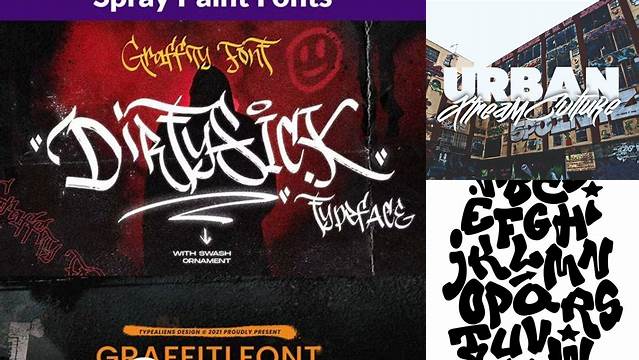
Graffiti Tag Fonts: Unleash Your Inner Artist
Hey guys! Ever been captivated by the raw energy and rebellious spirit of graffiti? One of the coolest aspects of graffiti art is the lettering, those tag fonts that scream personality and style. So, let’s dive deep into the world of graffiti tag fonts, exploring everything from their history to how you can create your own. Get ready to unleash your inner artist!
History and Evolution of Graffiti Tag Fonts
The Origins of Graffiti Lettering
To truly appreciate graffiti tag fonts, we need to rewind the clock and understand their roots. Graffiti, in its essence, is an ancient art form. Think cave paintings, Roman inscriptions, and even medieval markings – humans have always had the urge to leave their mark. But the modern graffiti scene, the one we associate with vibrant lettering and bold tags, really took off in the late 1960s and early 1970s in Philadelphia and New York City. Early taggers used simple, legible lettering to get their names out there, marking their territory and building their reputations. These foundational styles laid the groundwork for the explosion of creativity that was to come.
Imagine the streets of New York in the 70s, a canvas of urban grit and raw energy. Young artists, fueled by a desire for recognition and self-expression, began using the city as their gallery. They developed unique handstyles, experimenting with letterforms, adding flourishes, and playing with the negative space around the letters. This was more than just writing a name; it was about crafting a visual identity, a signature that screamed, “I was here!” The competition was fierce, and the taggers pushed each other to innovate, resulting in a rapid evolution of styles and techniques. This era was crucial in shaping the graffiti tag fonts we know and love today. It was a period of experimentation, innovation, and a whole lot of attitude.
The Transition to Modern Styles
As graffiti evolved, so did the graffiti tag fonts. What started as simple lettering morphed into intricate, stylized designs. Artists began incorporating elements like arrows, stars, and other embellishments to make their tags stand out. The use of bubble letters, wildstyle, and other complex forms became increasingly popular. This transition marked a shift from mere identification to artistic expression. Graffiti was no longer just about getting your name seen; it was about creating a visually stunning piece of art in its own right. Think about the layers of meaning embedded in these fonts – they’re not just letters; they’re symbols of identity, rebellion, and artistic innovation.
This evolution wasn't just about aesthetics; it was also about pushing boundaries. Artists constantly sought new ways to challenge conventions and create something unique. They drew inspiration from a variety of sources, from comic books and graphic design to calligraphy and typography. This fusion of influences led to the creation of diverse and dynamic graffiti tag fonts that reflected the ever-changing urban landscape. The modern styles are a testament to the ingenuity and creativity of graffiti artists, who continue to push the limits of what’s possible with letterforms.
Types of Graffiti Tag Fonts
Bubble Letters
Ah, bubble letters! These round, plump, and often overlapping forms are a classic in the world of graffiti tag fonts. They’re characterized by their soft edges and inflated appearance, giving them a playful yet bold look. Think of them as the friendly giants of graffiti lettering. Bubble letters are a great starting point for aspiring graffiti artists because they’re relatively simple to execute, but they also offer plenty of room for customization. You can play with the thickness of the lines, the amount of overlap, and the overall shape of the letters to create your own unique style.
The appeal of bubble letters lies in their accessibility and versatility. They’re instantly recognizable, making them an effective way to get your tag noticed. But don’t let their simplicity fool you; mastering bubble letters requires practice and attention to detail. The key is to maintain consistent spacing and proportions between the letters, ensuring that the tag remains legible and visually appealing. Experiment with different variations, such as adding drips, highlights, or shadows, to give your bubble letters an extra dimension. Remember, the best graffiti tag fonts are those that reflect your personal style and creativity.
Wildstyle
Now, let’s talk about wildstyle – the undisputed king of complex graffiti tag fonts. Wildstyle is characterized by its intricate, interlocking letterforms, often with arrows, connections, and abstract shapes thrown into the mix. It’s like a visual puzzle, challenging the viewer to decipher the tag while simultaneously admiring the artistry. Wildstyle is not for the faint of heart; it requires a high level of skill and spatial awareness to execute effectively. But the payoff is huge: a well-executed wildstyle tag is a true masterpiece, a testament to the artist's creativity and technical prowess.
The beauty of wildstyle lies in its ambiguity and its ability to transform letters into abstract art. The interlocking forms create a sense of movement and energy, drawing the viewer's eye across the tag. While the legibility of wildstyle can sometimes be a challenge, that’s part of its charm. It’s a style that demands attention and rewards close inspection. If you’re looking to create a tag that’s truly unique and visually stunning, wildstyle is the way to go. Just be prepared to put in the time and effort to master this complex and rewarding style of graffiti tag fonts.
Block Letters
Block letters are the solid, sturdy foundation of graffiti tag fonts. They’re characterized by their clean lines, sharp angles, and bold presence. Think of them as the architectural backbone of graffiti lettering, providing a strong and legible base for more elaborate styles. Block letters are often used for outlines and fills, providing a contrast to the more intricate details of a tag. They’re also a great choice for beginners because they’re relatively easy to learn and execute. But don’t underestimate the power of a well-crafted block letter tag; when done right, they can be incredibly impactful.
The simplicity of block letters is their strength. They’re instantly recognizable and highly legible, making them an effective way to get your message across. But that doesn’t mean they’re boring. You can add your own personal touch by varying the thickness of the lines, playing with the negative space, and incorporating subtle details. Block letters are also a great canvas for experimentation. Try adding drips, highlights, or shadows to give them more dimension. Or use them as a base for more complex styles, such as wildstyle or 3D lettering. The possibilities are endless when you’re working with graffiti tag fonts.
Throw-Ups
Throw-ups are the quick and dirty cousins of graffiti tag fonts. They’re typically two-color tags, often done with bubble letters or simplified block letters, designed to be executed quickly and efficiently. Think of them as the urban equivalent of a signature – a fast and impactful way to get your name seen. Throw-ups are all about speed and visibility, often done in high-traffic areas or on difficult-to-reach surfaces. They’re a staple of the graffiti scene, a testament to the artist's dedication and persistence.
The key to a good throw-up is simplicity and legibility. You want to create a tag that’s easy to read and recognizable, even at a distance. That’s why bubble letters are a popular choice for throw-ups; their rounded forms are quick to execute and highly visible. But don’t let the simplicity fool you; mastering the throw-up takes practice and skill. You need to be able to execute the tag quickly and cleanly, without sacrificing the overall aesthetic. Experiment with different colors, letterforms, and techniques to develop your own unique throw-up style. Remember, the best graffiti tag fonts are those that are both visually appealing and effective in getting your message across.
Stencil Fonts
Stencil fonts bring a unique flavor to the world of graffiti tag fonts. They're characterized by their clean, crisp lines and consistent shapes, often created using physical stencils. Think of them as the precision tools of the graffiti artist, allowing for intricate designs and repeatable patterns. Stencil fonts are a great way to create visually striking tags that stand out from the crowd. They’re also a popular choice for political and social messaging, allowing for the quick and efficient dissemination of information.
The appeal of stencil fonts lies in their versatility and precision. You can create stencils using a variety of materials, from cardboard and plastic to metal and even wood. This allows for a wide range of textures and effects, from smooth and polished to rough and textured. Stencil fonts are also a great way to experiment with negative space. By cutting out shapes and letters from the stencil, you can create tags that are both visually striking and conceptually interesting. Whether you’re looking to create intricate designs or bold, impactful messages, stencil fonts offer a unique and powerful tool for expression within the realm of graffiti tag fonts.
Creating Your Own Graffiti Tag Fonts
Understanding the Basics of Lettering
Before you dive headfirst into creating your own graffiti tag fonts, it’s crucial to understand the fundamentals of lettering. Think of it as learning the alphabet before writing a novel. Understanding basic letterforms, spacing, and proportions will provide a solid foundation for your graffiti journey. Start by studying different typefaces and handstyles. Pay attention to the way letters are constructed, the curves and angles, and the overall balance and harmony. This knowledge will help you develop your own unique style and create tags that are both legible and visually appealing.
The basics of lettering aren’t just about aesthetics; they’re also about functionality. A well-designed tag is one that’s easy to read and recognizable, even at a distance. That’s why understanding letter spacing and proportions is so important. You need to ensure that the letters are evenly spaced and that they maintain a consistent size and shape. This will help your tag stand out and communicate your message effectively. So, take the time to learn the basics of lettering before you start experimenting with more complex styles. It’s an investment that will pay off in the long run when you're crafting those killer graffiti tag fonts.
Experimenting with Different Styles
Once you’ve got a grasp of the basics, it’s time to let your creativity flow! Experimentation is key to developing your own unique style of graffiti tag fonts. Try your hand at different lettering styles, from bubble letters and block letters to wildstyle and stencil fonts. Don’t be afraid to mix and match elements from different styles to create something entirely new. The goal is to find a style that resonates with you and that allows you to express your personality and artistic vision.
Experimentation isn’t just about trying different styles; it’s also about pushing boundaries and challenging conventions. Try distorting letters, adding flourishes, and playing with negative space. Don’t be afraid to make mistakes; they’re often the best way to learn and discover new techniques. Keep a sketchbook handy and fill it with ideas, sketches, and experiments. The more you practice and experiment, the more confident and skilled you’ll become in crafting your own graffiti tag fonts. Remember, the best graffiti artists are those who are constantly learning and evolving.
Using Digital Tools
In today’s digital age, there’s a wealth of tools available to help you create graffiti tag fonts. From graphic design software like Adobe Photoshop and Illustrator to specialized graffiti apps, the possibilities are endless. Digital tools offer a range of benefits, including the ability to experiment with different colors, textures, and effects without the mess and expense of traditional materials. They also make it easy to share your work online and collaborate with other artists.
But don’t think that digital tools are a replacement for traditional techniques. They’re simply another tool in your arsenal. It’s important to develop your skills with traditional methods, such as sketching and hand lettering, before you start relying on digital tools. This will give you a better understanding of the fundamentals of lettering and design. Use digital tools to enhance your work, not to replace it. Experiment with different software and apps to find the ones that best suit your style and workflow. And remember, the most important tool is your imagination when creating those awesome graffiti tag fonts.
Practicing Regularly
Like any art form, mastering graffiti tag fonts requires consistent practice. Think of it as training a muscle; the more you use it, the stronger it gets. Set aside time each day or week to practice your lettering skills. Start with the basics, such as drawing letterforms and practicing spacing. Then, gradually move on to more complex styles and techniques. The key is to be patient and persistent. Don’t get discouraged if your tags don’t look perfect at first. The more you practice, the better you’ll become.
Practice isn’t just about repetition; it’s also about experimentation and refinement. Try different techniques, styles, and materials. Analyze your work and identify areas for improvement. Seek feedback from other artists and be open to constructive criticism. The best way to improve your skills is to learn from your mistakes and to continually challenge yourself. So, grab your sketchbook, pens, and markers, and get to work. The more you practice, the closer you’ll get to creating those signature graffiti tag fonts that scream your name.
Seeking Inspiration
Inspiration is the fuel that drives creativity. When it comes to graffiti tag fonts, there’s inspiration all around you. From the lettering on vintage signs to the handstyles of legendary graffiti artists, there’s a wealth of visual material to draw from. Immerse yourself in the world of graffiti and street art. Visit galleries, browse online forums, and explore urban environments. Pay attention to the details, the shapes, the colors, and the textures. And don’t limit yourself to graffiti; draw inspiration from other art forms, such as graphic design, calligraphy, and typography.
But inspiration isn’t just about visual input; it’s also about personal experiences and emotions. Your life experiences, your passions, and your perspectives can all inform your art. Use your graffiti tag fonts as a way to express yourself and your unique point of view. Don’t be afraid to be authentic and original. The best graffiti artists are those who bring something new to the table, who challenge conventions and push boundaries. So, open your eyes, open your mind, and let the inspiration flow as you develop your own style of graffiti tag fonts.
Where to Use Your Graffiti Tag Fonts
Sketchbooks and Paper
Sketchbooks and paper are the perfect starting point for any aspiring graffiti artist. They provide a safe and low-pressure environment to experiment with graffiti tag fonts and develop your skills. Think of your sketchbook as your personal laboratory, a place where you can freely explore ideas, make mistakes, and learn from them. Fill it with sketches, drawings, and lettering experiments. Try different styles, colors, and techniques. Don’t be afraid to be messy and imperfect; the goal is to learn and grow.
Sketchbooks are also a great way to document your progress and track your evolution as an artist. Date your entries and make notes about your process and your inspirations. This will help you see how far you’ve come and identify areas where you can continue to improve. When you're working on graffiti tag fonts, don't underestimate the power of a good sketchbook. It’s an essential tool for any artist looking to hone their craft and develop their unique style. It’s where the magic starts, the first step in bringing your vision to life.
Digital Art
As we’ve discussed, digital art tools offer a fantastic way to create and experiment with graffiti tag fonts. Whether you’re using graphic design software like Adobe Photoshop and Illustrator or specialized graffiti apps, the digital realm opens up a world of possibilities. You can easily experiment with different colors, textures, and effects, without the mess and expense of traditional materials. Digital art also makes it easy to share your work online and collaborate with other artists.
But the beauty of digital art isn’t just about convenience; it’s also about creative potential. You can create intricate designs and complex compositions that would be difficult or impossible to achieve with traditional methods. Digital tools also allow you to easily undo mistakes and make revisions, making them a great choice for beginners. So, whether you’re a seasoned pro or just starting out, consider incorporating digital art into your graffiti tag fonts workflow. It’s a powerful tool for expression and a great way to push the boundaries of your creativity.
Murals (Legal Walls)
Murals are the ultimate canvas for graffiti tag fonts. They offer a large, public space to showcase your skills and share your art with the world. But it’s crucial to remember that creating murals on public or private property without permission is illegal and can have serious consequences. That’s why it’s important to seek out legal walls and sanctioned spaces where you can create your art without fear of legal repercussions.
Legal walls are designated areas where graffiti artists are allowed to paint murals. These spaces provide a safe and supportive environment for artists to express themselves and develop their skills. They’re also a great way to connect with other artists and build community. Before you start painting a mural, it’s important to research local regulations and obtain any necessary permits or permissions. Respect the space, respect the community, and respect the art form. When you’re working with graffiti tag fonts on a mural, you’re not just creating a piece of art; you’re contributing to a vibrant and dynamic urban landscape.
Clothing and Merchandise
Imagine rocking your own custom graffiti tag fonts on a t-shirt, hoodie, or even a hat! Applying your designs to clothing and merchandise is a fantastic way to showcase your artistic style and even turn your passion into a side hustle. With the rise of print-on-demand services, it's easier than ever to create and sell your own custom apparel. You can use digital tools to create your designs and then upload them to a print-on-demand platform, which will handle the printing and shipping for you.
But applying graffiti tag fonts to clothing isn’t just about making cool merch; it’s also about self-expression. It’s about wearing your art on your sleeve (literally!) and sharing your unique style with the world. Think about how you can incorporate your signature tag, your favorite lettering styles, and your personal artistic flair into your clothing designs. Whether you're creating a bold statement piece or a subtle nod to your graffiti roots, clothing and merchandise offer a unique canvas for showcasing your graffiti tag fonts.
Digital Platforms (Social Media, Websites)
In the digital age, your online presence is just as important as your physical presence. Social media platforms like Instagram, TikTok, and Behance are powerful tools for showcasing your graffiti tag fonts and connecting with a global audience. These platforms provide a virtual gallery where you can share your work, get feedback, and build a following. A well-curated online portfolio can open doors to collaborations, commissions, and even career opportunities.
But building a successful online presence is about more than just posting your work; it’s about engaging with your audience and building a community. Respond to comments, participate in discussions, and collaborate with other artists. Use hashtags strategically to reach a wider audience. And don’t be afraid to experiment with different content formats, such as videos, tutorials, and behind-the-scenes glimpses into your creative process. Digital platforms offer a fantastic way to showcase your graffiti tag fonts, connect with other artists, and share your passion with the world.
Legal and Ethical Considerations
Understanding Graffiti Laws
It’s crucial to understand the legal landscape surrounding graffiti before you start creating your graffiti tag fonts in public spaces. Graffiti laws vary from place to place, but in general, creating graffiti on public or private property without permission is considered vandalism and is a criminal offense. The penalties for graffiti vandalism can range from fines and community service to jail time, depending on the severity of the offense and local laws.
Ignorance of the law is never an excuse. It’s your responsibility to research local regulations and understand what’s legal and what’s not. Seek out legal walls and sanctioned spaces where you can create your art without fear of legal repercussions. Respect private property and always obtain permission before painting on any surface. Remember, being a responsible and ethical artist is just as important as being a creative one. When it comes to graffiti tag fonts, knowledge of the law can keep you on the right side of it.
Respecting Private Property
One of the most important ethical considerations in the world of graffiti is respecting private property. Creating graffiti on someone else’s property without their permission is not only illegal, but it’s also disrespectful and can cause significant damage. Always obtain permission from the property owner before painting on any surface. If you’re unable to obtain permission, seek out legal walls and sanctioned spaces where you can create your art without violating anyone’s rights.
Respecting private property isn’t just about following the law; it’s about being a responsible member of the community. Graffiti can be a powerful form of self-expression, but it shouldn’t come at the expense of someone else’s property rights. Be mindful of the impact your art has on others and strive to create art that enhances the urban landscape without causing harm or offense. When you’re working with graffiti tag fonts, respect for private property is paramount to maintaining the integrity of the art form and fostering positive relationships within the community.
Ethical Considerations in Graffiti Art
Beyond legal considerations, there are also ethical considerations that every graffiti artist should be mindful of. These considerations include respecting other artists, avoiding offensive or hateful content, and creating art that enhances the community rather than detracting from it. Graffiti is a form of public expression, and with that comes a responsibility to use your voice wisely and thoughtfully.
Respecting other artists means avoiding biting (copying) their styles and giving credit where credit is due. It also means being mindful of the placement of your work and avoiding painting over someone else’s art without their permission. Avoiding offensive or hateful content means using your art to promote positive messages and avoid perpetuating harmful stereotypes or biases. Creating art that enhances the community means striving to create pieces that are visually appealing, thought-provoking, and contribute to the overall vibrancy of the urban landscape. Ethical considerations are a crucial aspect of graffiti tag fonts and ensure the art form remains a positive force in the community.
Famous Graffiti Artists and Their Tag Fonts
Jean-Michel Basquiat
Jean-Michel Basquiat, a name synonymous with the explosion of street art into the mainstream art world, was a true visionary. His signature graffiti tag fonts, often scrawled and layered with cryptic symbols and social commentary, were a key element of his unique artistic style. Basquiat's work challenged conventions and blurred the lines between street art and fine art, paving the way for future generations of graffiti artists. His raw, emotive style and his use of language as a visual medium made him a truly influential figure in the art world.
Basquiat's graffiti tag fonts weren't just about writing words; they were about creating a visual language that conveyed complex ideas and emotions. His tags were often filled with references to history, literature, and popular culture, inviting viewers to decode his messages and engage with his art on a deeper level. Basquiat's legacy extends far beyond the world of graffiti; he remains an inspiration to artists of all disciplines who seek to use their art as a vehicle for social commentary and personal expression.
Banksy
Banksy, the anonymous street art superstar, is known for his satirical and thought-provoking stencils, but his graffiti tag fonts also play a crucial role in his work. Often used to add context and commentary to his visual imagery, Banksy's lettering is simple yet effective, conveying his messages with clarity and wit. His anonymity adds an element of intrigue to his work, making him one of the most enigmatic and influential artists of our time.
Banksy's graffiti tag fonts are often characterized by their directness and their ability to pack a punch with just a few words. His messages are often politically charged, challenging the status quo and prompting viewers to question their assumptions. Banksy's work is a testament to the power of graffiti as a form of social commentary and a reminder that art can be a powerful tool for change. His unique blend of imagery and text has made him a global phenomenon, inspiring countless artists and activists around the world.
Futura 2000
Futura 2000, a true pioneer of abstract graffiti, revolutionized the world of graffiti tag fonts with his unique blend of lettering and abstract imagery. His work is characterized by its dynamic lines, vibrant colors, and futuristic aesthetic. Futura's tags often resemble abstract paintings, pushing the boundaries of traditional graffiti lettering and creating a visual language that is both beautiful and enigmatic. His influence can be seen in countless works of graffiti art and graphic design today.
Futura 2000's graffiti tag fonts are a testament to the power of experimentation and the ability to transform letters into abstract art forms. His work challenges the viewer to look beyond the literal meaning of words and to appreciate the aesthetic qualities of letterforms. Futura's innovative approach to graffiti has earned him a place among the legends of the art form, and his work continues to inspire artists who seek to push the boundaries of visual expression.
The Future of Graffiti Tag Fonts
Digital Graffiti and Augmented Reality
The future of graffiti tag fonts is inextricably linked to technology. Digital graffiti and augmented reality (AR) are opening up exciting new possibilities for artists to create and share their work. Digital graffiti allows artists to create virtual tags and murals using digital tools, eliminating the need for physical materials and the risk of vandalism. AR technology takes this a step further, allowing artists to overlay their digital creations onto real-world environments, creating interactive and immersive art experiences.
Imagine walking down the street and seeing a virtual graffiti mural come to life on your smartphone screen. Or creating a collaborative tag with artists from around the world in a shared virtual space. Digital graffiti and AR are blurring the lines between the physical and digital worlds, creating new opportunities for artistic expression and community engagement. As technology continues to evolve, we can expect to see even more innovative ways for artists to use graffiti tag fonts in the digital realm.
The Fusion of Styles and Techniques
The world of graffiti tag fonts is constantly evolving, and one of the most exciting trends is the fusion of different styles and techniques. Artists are drawing inspiration from a wide range of sources, from traditional calligraphy and typography to graphic design and street art. They’re experimenting with new materials, tools, and techniques, pushing the boundaries of what’s possible with letterforms. This fusion of styles is leading to the creation of new and innovative forms of graffiti art that are both visually stunning and conceptually rich.
Think about the possibilities that arise when you combine the elegance of calligraphy with the raw energy of wildstyle. Or the precision of stencil fonts with the fluidity of bubble letters. The fusion of styles and techniques is not just about aesthetics; it’s also about creating a visual language that reflects the diverse and interconnected world we live in. As artists continue to collaborate and share their ideas, we can expect to see even more exciting developments in the world of graffiti tag fonts.
Graffiti as a Global Art Form
Graffiti has long been a local art form, rooted in specific communities and urban environments. But with the rise of the internet and social media, graffiti has become a truly global phenomenon. Artists from around the world are connecting, collaborating, and sharing their work with a global audience. This cross-cultural exchange is enriching the art form and leading to the development of new and diverse styles of graffiti tag fonts.
Imagine an artist in Brazil collaborating with an artist in Japan on a virtual mural. Or a graffiti crew in New York City drawing inspiration from the street art scene in Berlin. The global reach of graffiti is creating a dynamic and interconnected art world where ideas and influences flow freely across borders. As graffiti continues to evolve as a global art form, we can expect to see even more exciting collaborations and innovations in the world of graffiti tag fonts.
Resources for Learning Graffiti Tag Fonts
Online Tutorials and Courses
If you’re eager to learn the art of graffiti tag fonts, the internet is your oyster! A wealth of online tutorials and courses are available, catering to all skill levels from absolute beginners to seasoned artists looking to refine their techniques. Platforms like YouTube, Skillshare, and Udemy host countless videos and courses that break down the fundamentals of graffiti lettering, from basic letterforms to complex wildstyle tags.
These online resources offer a flexible and convenient way to learn at your own pace. You can pause, rewind, and re-watch lessons as needed, and many courses include downloadable resources and practice exercises. Look for tutorials that cover the specific styles you’re interested in, whether it’s bubble letters, block letters, or intricate wildstyle. With dedication and a willingness to learn, online tutorials and courses can be a powerful tool for mastering the art of graffiti tag fonts.
Books and Publications
For those who prefer a more tangible learning experience, a variety of books and publications delve into the world of graffiti tag fonts. These resources offer in-depth explanations of different lettering styles, historical context, and practical tips for improving your skills. Look for books that include step-by-step instructions, examples of famous graffiti artists' work, and exercises to help you develop your own unique style.
Books and publications can provide a comprehensive overview of the art form, from its origins to its contemporary manifestations. They often include interviews with renowned graffiti artists, offering valuable insights into their creative processes and techniques. Whether you're a beginner looking to learn the basics or an experienced artist seeking inspiration, books and publications can be a valuable addition to your graffiti tag fonts learning journey.
Graffiti Communities and Workshops
One of the best ways to learn graffiti tag fonts is to immerse yourself in the community. Graffiti communities, both online and offline, provide a supportive environment for artists to connect, share their work, and learn from each other. Online forums, social media groups, and local graffiti crews offer opportunities to get feedback on your work, ask questions, and collaborate with other artists.
Workshops and events are another great way to learn from experienced graffiti artists and hone your skills. These events often include live demonstrations, hands-on practice sessions, and opportunities to network with other artists. Look for workshops in your area or consider attending graffiti festivals and conventions. Engaging with the graffiti community can provide invaluable learning experiences and help you develop your own unique style of graffiti tag fonts.